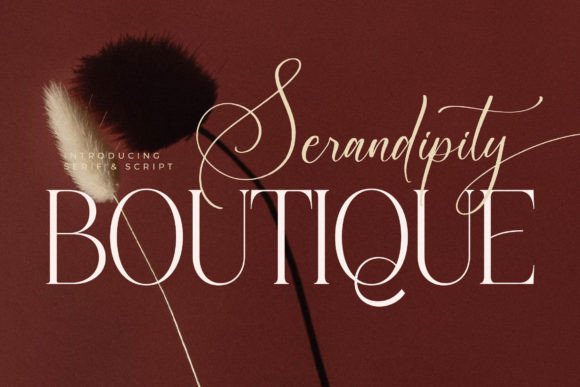
Introducing Serandipity Boutique Font Duo, a masterpiece created by Storytype Studio, that will elevate your design projects to new heights. With its unique style and modern look, this serif and script typeface is the perfect choice for those seeking elegance and luxury in their designs.
Imagine the impact of a beautifully crafted logo or a captivating movie title, all brought to life with the charm of Serandipity Boutique Font Duo. Its versatility knows no bounds, making it suitable for a wide range of projects, including fashion brands, magazines, clothing designs, lettering, quotes, and so much more.
What sets Serandipity Boutique Font Duo apart is not just its stunning aesthetics, but also its ease of use. This font is PUA encoded, allowing you to effortlessly access all the amazing glyphs and ligatures it offers. Say goodbye to the hassle of searching for the perfect character or symbol – they're all at your fingertips.
Embrace the power of Serandipity Boutique Font Duo and watch as your designs come to life with an air of sophistication and modernity. Its serif and script combination creates a harmonious balance, capturing attention and leaving a lasting impression on anyone who encounters it.
Whether you're designing a website, creating a book cover, or working on a branding project, Serandipity Boutique Font Duo has got you covered. Its versatility and adaptability make it a valuable asset for designers looking to make a bold statement.
Let your creativity run wild and explore the endless possibilities that Serandipity Boutique Font Duo offers. Unleash the elegance and luxury it exudes, and witness how it transforms your designs from ordinary to extraordinary.
Don't settle for mediocre fonts when you can have the best. Serandipity Boutique Font Duo is the epitome of excellence, carefully crafted to meet the highest standards of quality and aesthetics. It's time to take your designs to the next level and make a lasting impression with Serandipity Boutique Font Duo.